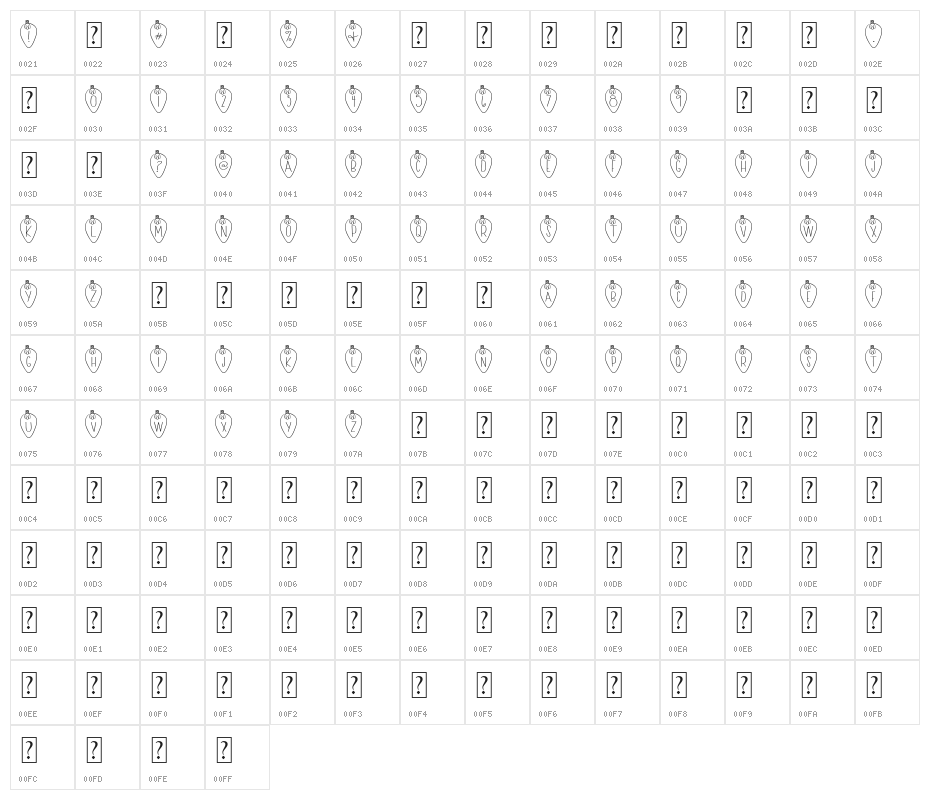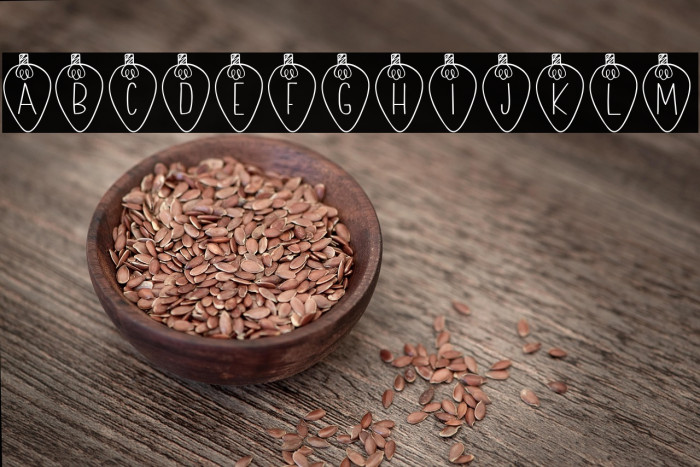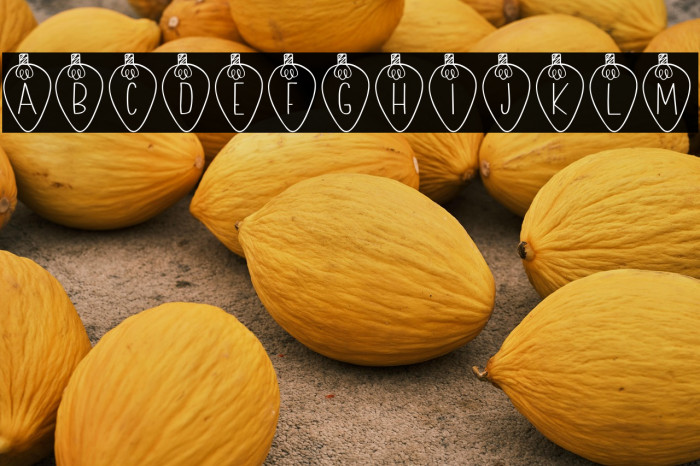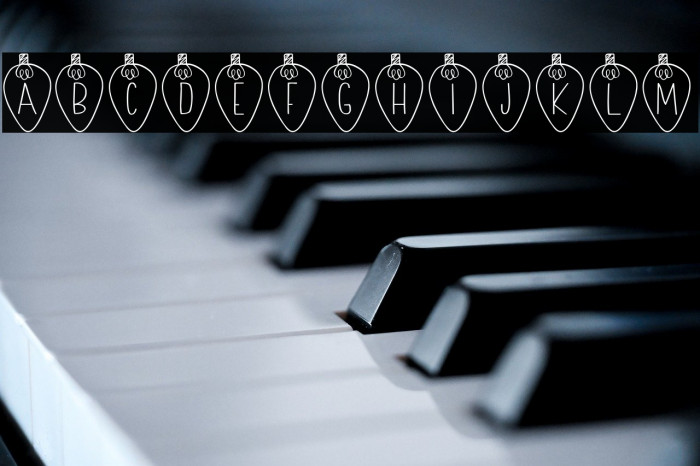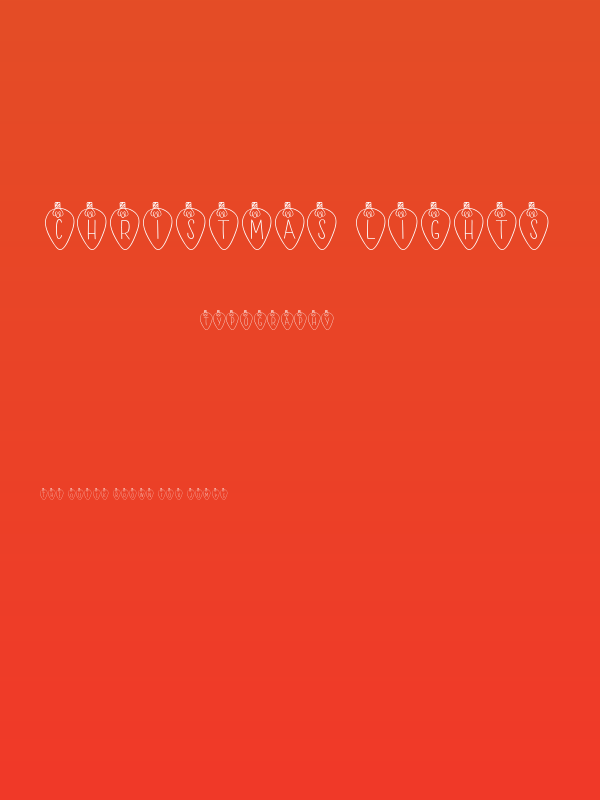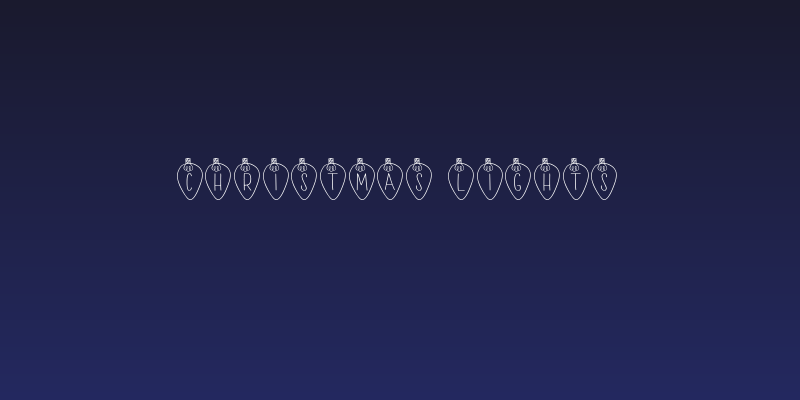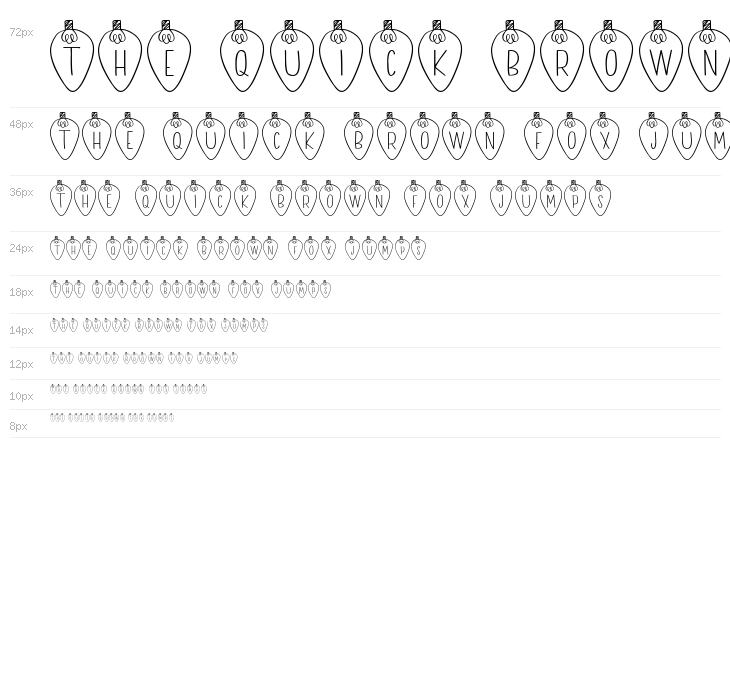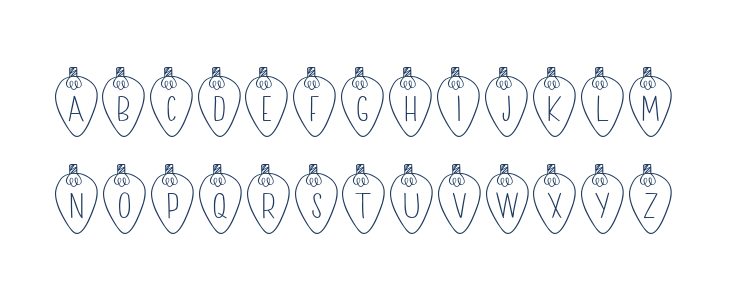
Christmas Lights Font
Christmas Lights Description
This playful and festive font is designed to resemble Christmas lights, with each character encased in a bulb shape. The letters are uppercase and lowercase, with a whimsical, hand-drawn style that adds a touch of holiday cheer. The numbers and special characters are also included, maintaining the same decorative bulb design. The font's unique appearance makes it ideal for seasonal projects, evoking a sense of warmth and celebration. The characters are evenly spaced, ensuring readability while maintaining their decorative appeal. This font is perfect for adding a festive touch to any design.
| Proposed Projects | Ideal for holiday cards, festive banners, seasonal advertisements, and Christmas-themed invitations. |